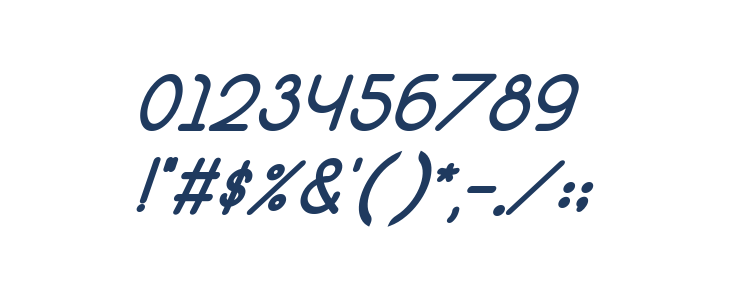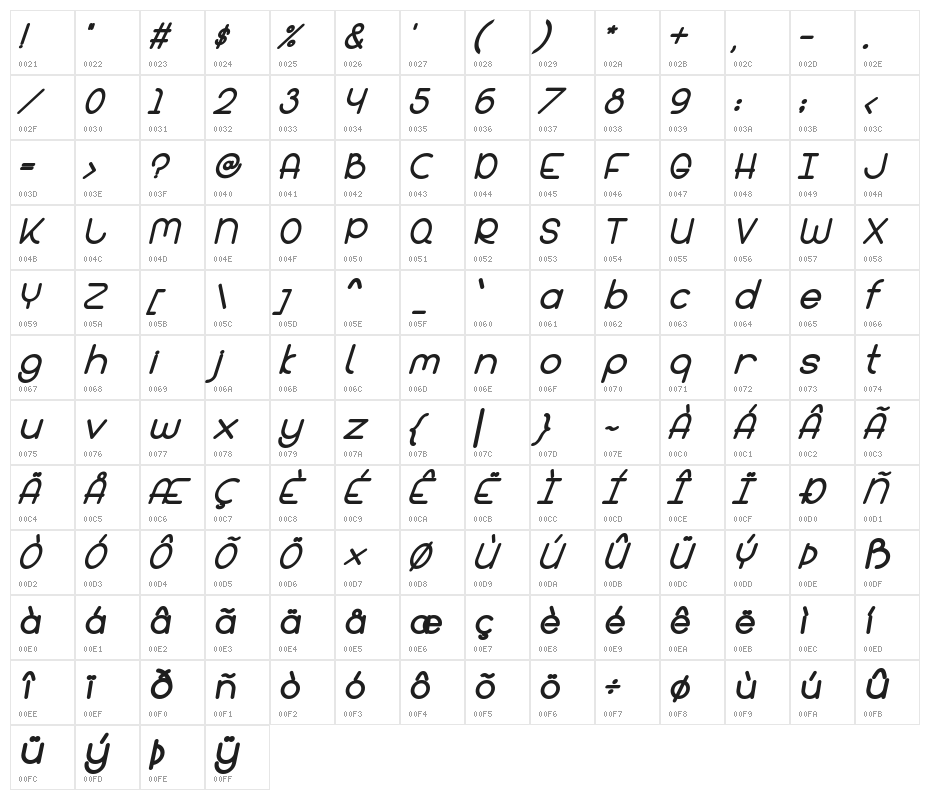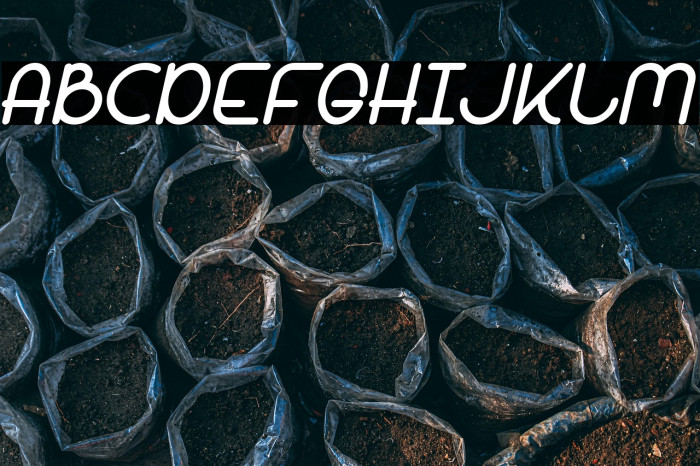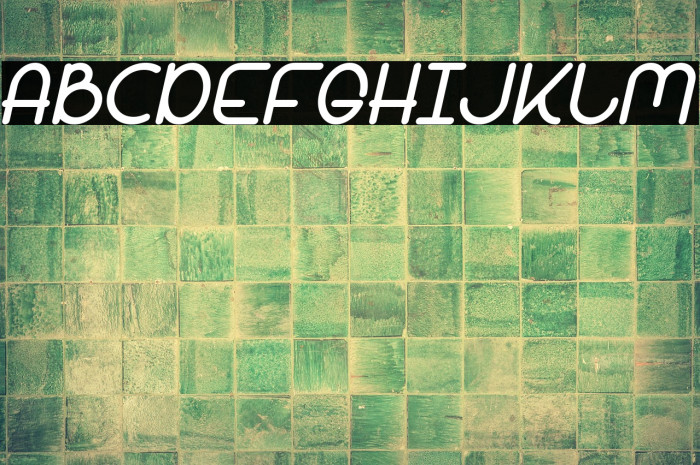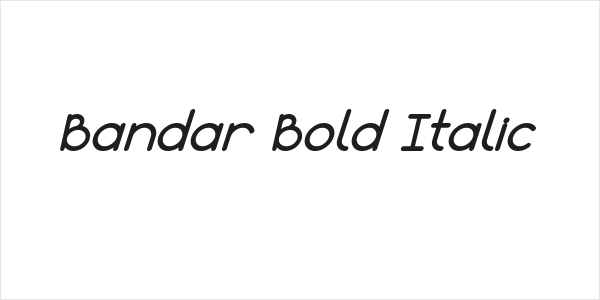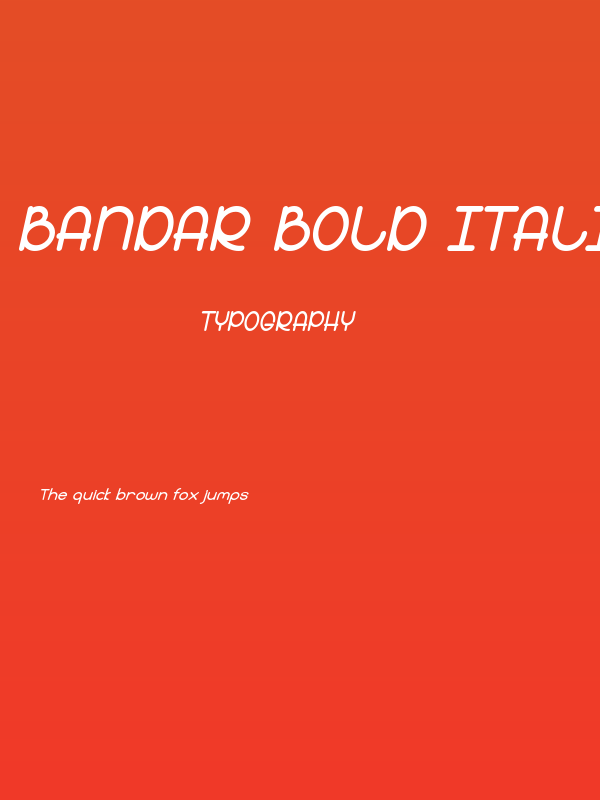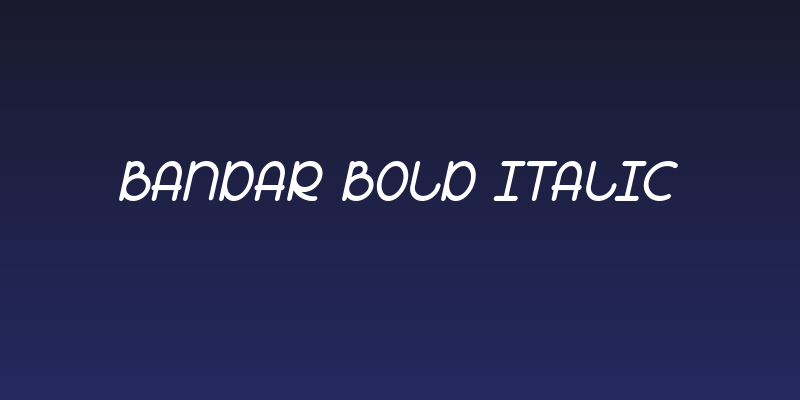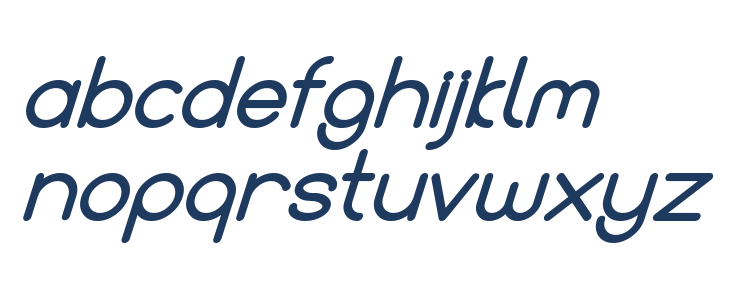
Bandar Bold Italic Font
Bandar Bold Italic Description
This font features a bold and italic style with smooth, rounded edges that give it a friendly and approachable appearance. The characters are slightly slanted, enhancing the italic effect, while maintaining a consistent thickness throughout. The rounded terminals and curves create a sense of fluidity and movement, making it visually appealing and easy to read. The numbers and special characters are designed to match the playful and modern aesthetic of the letters, ensuring a cohesive look across all text elements. This font is versatile, suitable for both digital and print media, and can be used to add a touch of personality to any project.
| Proposed Projects | Ideal for branding, advertising, children's books, and playful design projects. |